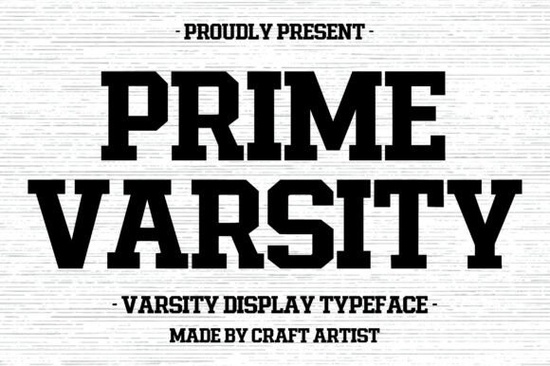
When you're looking for a font that can bring a strong, athletic vibe to your designs, Prime Varsity Font is an excellent choice. This powerful display typeface is designed to capture the classic collegiate aesthetic, making it perfect for high-energy projects like team jerseys, sports branding, and event posters.
Why Choose Prime Varsity Font?
Prime Varsity is built for impact. Its bold, thick strokes and sharp, blocky serifs command attention, giving your designs a professional and athletic look. Whether you're working on a local high school team's uniform or creating a vintage-inspired streetwear line, this typeface delivers a strong, authoritative presence.
Perfect for Sports and Team Branding
One of the standout features of Prime Varsity is its versatility. It's not just for sports; it can also be used for university-themed apparel, event posters, and more. The font's design embodies team spirit, tradition, and competitive excellence, making it a go-to choice for any project that needs a touch of energy and strength.
How Does Prime Varsity Compare to Other Varsity Fonts?
While there are many varsity-style fonts available, Prime Varsity stands out with its unique blend of classic and modern elements. For example, if you're looking for a more distressed, worn-out look, you might consider a distressed font. If you prefer a more traditional, vintage feel, a vintage varsity font could be a better fit. However, Prime Varsity offers a clean, bold, and versatile option that works well in both digital and print formats.
Using Prime Varsity in Different Projects
Prime Varsity is incredibly versatile and can be used in a variety of creative projects. Here are some ideas:
- Team Jerseys and Uniforms: Add a professional and athletic touch to your team's uniforms with Prime Varsity. Its bold and clear design makes it easy to read from a distance, perfect for sports teams.
- Sports Branding: Use Prime Varsity for logos, banners, and promotional materials. Its strong, authoritative presence makes it ideal for branding that needs to stand out.
- Event Posters: Create eye-catching event posters for sports tournaments, school events, or community gatherings. The font's bold and impactful design will grab attention and convey the right message.
- Vintage-Inspired Apparel: Incorporate Prime Varsity into your streetwear or vintage-inspired clothing line. Its timeless yet modern look adds a unique and stylish element to your designs.
Combining Prime Varsity with Other Fonts
To create a well-rounded and visually appealing design, consider pairing Prime Varsity with other complementary fonts. For instance, you can use a Gemstone Font for a touch of elegance or a Wiggle Whistle Font for a playful, whimsical feel. Experiment with different combinations to find what works best for your project.
Tips for Using Prime Varsity Effectively
To get the most out of Prime Varsity, here are a few tips:
- Test Different Sizes: Play around with different font sizes to see how Prime Varsity looks at various scales. This will help you find the perfect size for your specific project.
- Consider Color Choices: The right color can make a big difference. Choose colors that complement the overall design and enhance the font's impact. Bold, contrasting colors often work well with Prime Varsity.
- Use White Space Wisely: Don't overcrowd your design. Leave enough white space to let the font breathe and stand out. This will make your text more readable and visually appealing.
- Experiment with Text Effects: Try adding subtle text effects like shadows or outlines to give your design an extra edge. Just be careful not to overdo it, as too many effects can detract from the font's clarity.
Final Thoughts
Prime Varsity Font is a fantastic choice for anyone looking to add a strong, athletic, and professional touch to their designs. Its versatility and impact make it suitable for a wide range of projects, from sports branding to vintage-inspired apparel. By following the tips above, you can effectively use Prime Varsity to create designs that stand out and leave a lasting impression.